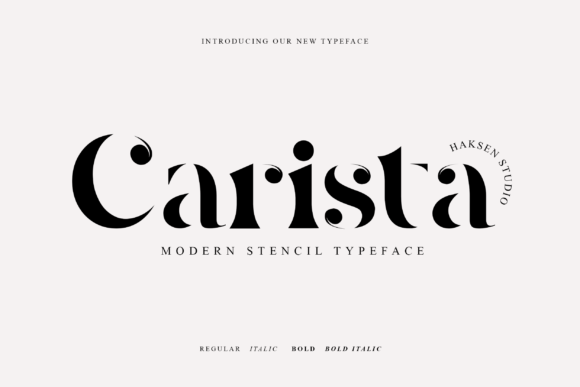
The Carista Font: A Modern Elegance for Your Creative Projects
I’ll never forget the time I was working on a wedding invitation project, and my client asked for a font that exuded elegance and sophistication. I scoured the internet, trying out font after font, but nothing seemed quite right. That was until I stumbled upon the Carista font. ✨
Carista is a modern and elegant serif font that has become a go-to in my design toolkit. Its versatility and range make it perfect for various projects, from logos and wedding invitations to headings, t-shirts, letterhead, signage, labels, news, posters, badges, and more.
An Honest Review of Carista Font
What I Love About Carista Font
- ✨ Elegant and sophisticated design
- ✅ Highly versatile and adaptable
- 🔍 Wide range of OpenType features and glyphs
- 💻 Works beautifully in various design platforms
While Carista font is exceptional, there are a few minor quirks to be aware of: 🤔
- ⚠️ Some users may find the font’s elegance too refined for certain projects
- ⚠️ Limited availability of certain stylistic alternates
The Designer Inspiration Behind Carista Font
The story behind Carista font begins with a designer who aimed to create a modern and elegant serif font that would cater to the needs of creative professionals. With inspiration from classic typography and modern design trends, Carista font was born. Its creator sought to craft a font that would be both refined and versatile, suitable for a wide range of projects.
Q: What is the Carista font best used for?
A: Carista font is best used for projects that require elegance and sophistication, such as logos, wedding invitations, headings, and more.
Q: Is Carista font suitable for body text?
A: While Carista font can be used for body text, it’s primarily designed for headings and titles. For longer blocks of text, consider using a font with better readability.
Q: Is Carista font available in different weights and styles?
A: Yes, Carista font comes in various weights and styles, allowing you to experiment with different looks and moods.